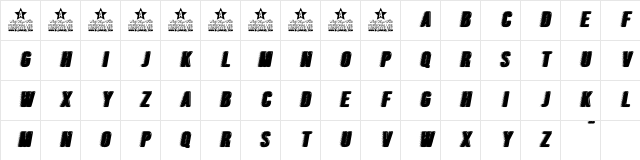
Complete PINKBEACH ITALIC PERSONAL USE Italic glyph index. Displaying only characters natively supported by PINKBEACH ITALIC PERSONAL USE Italic font.
PINKBEACH ITALIC PERSONAL USE is a composed and adaptable typeface that performs quietly and consistently across a wide range of design contexts. The slanted form adds forward momentum and visual energy.